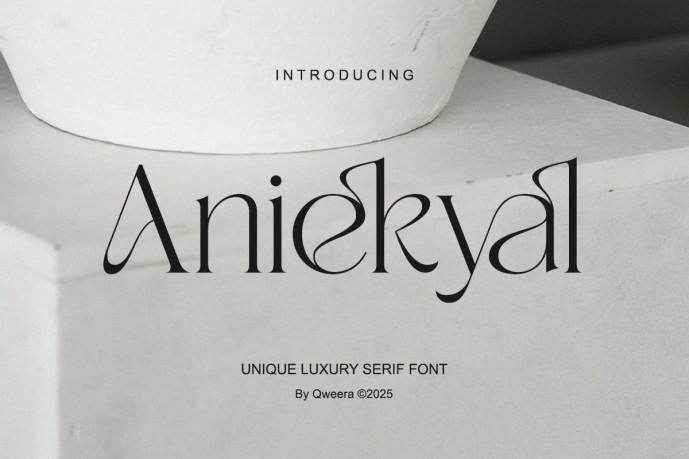
Aniekyal – Modern Elegant Font
Aniekyal – Modern Elegant Font, a distinctive typeface that fuses modern sophistication with timeless charm. Designed with unique letterforms, stylish alternates, and refined ligatures, Aniekyal offers an elevated aesthetic for creatives who demand exclusivity in their design projects.
Perfect for Elegant branding, fashion magazines, wedding stationery, logos, product packaging, and editorial layouts, Aniekyal delivers versatility without losing its bold, elegant character. The sleek details and crafted curves make it ideal for both display headlines and delicate typography compositions.
Bring your designs to life with Aniekyal – a Minimal Modern Elegant serif font that speaks of elegance and creativity.
• Regular & Italic
• Uppercase & lowercase letters
• Alternates & ligatures
• Numbers & punctuation
• Multilingual support
� Perfect For
• Elegant branding
• Editorial design
• Fashion logos
• Packaging design
• Wedding invitations
• Modern minimalist logos